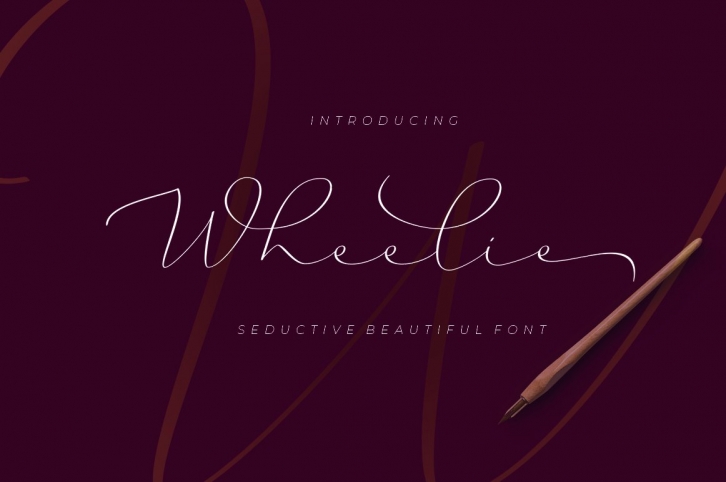
Wheelie is a seductive font that is made with a touch of elegance and feeling to give the best touch.
Wheelie containing beginning and ending swash to beautify your design, Wheelie can be used for invitations, greeting card, magazines headlines, posters, bookcover and other paperies.